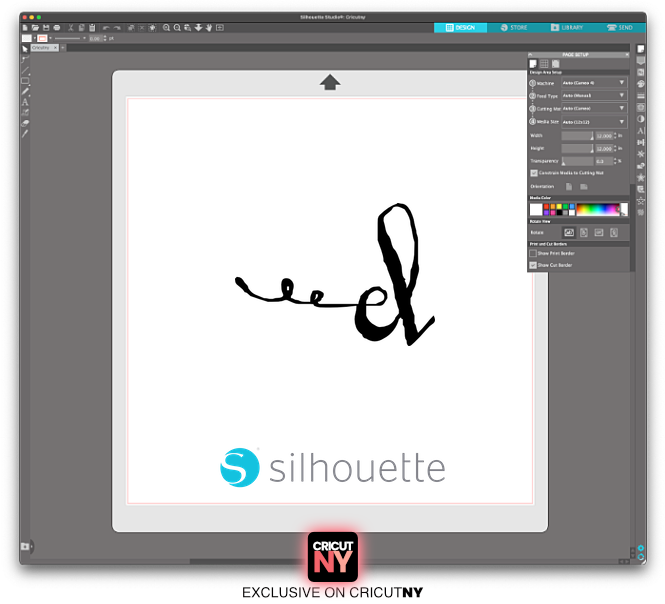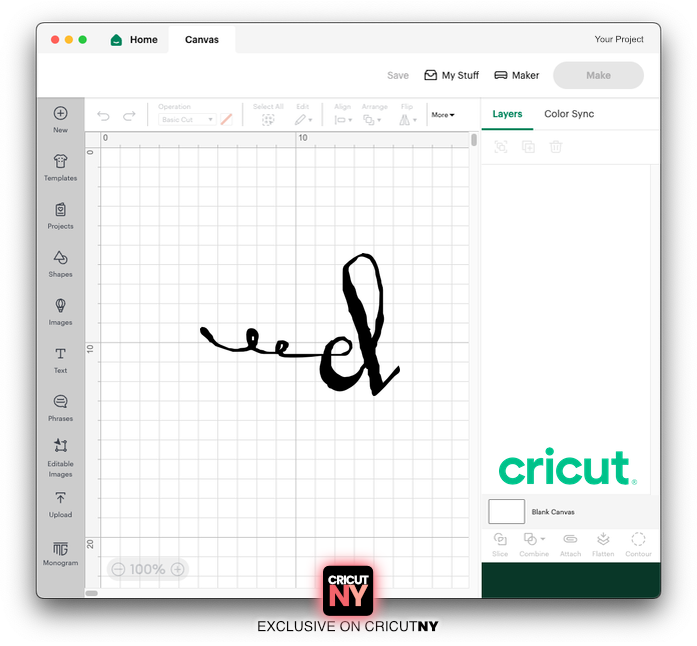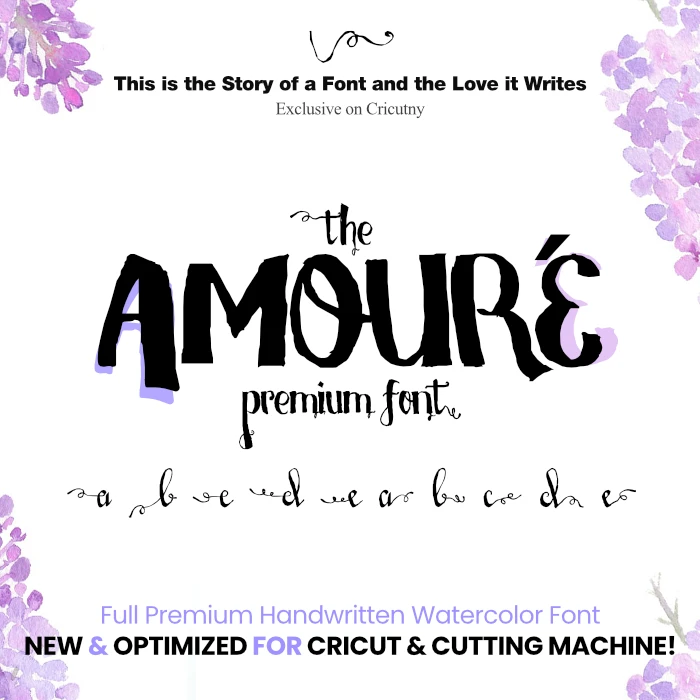
This is the Story of a Font and the Love it Writes.
A poetic font that conveys the essence of love and passion.
Discover an incredible font bundle, meticulously crafted by hand to inspire your creativity. This collection features both left and right swirl tails, along with a variety of unique tails, allowing for limitless design possibilities. Unleash your imagination today!
If you're seeking a heartfelt font for Valentine's Day or a wedding, this one could be just what you're looking for. Its beautiful watercolor and brush style adds a warm and romantic touch, helping to set the perfect ambiance for your special event.